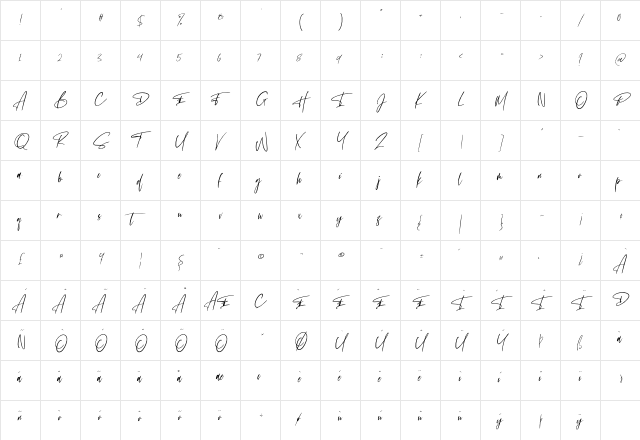
Hunthers Dwayne Regular
| Foundry | Stringlab |
| Designer | Stringlab |
Design Context for Hunthers Dwayne Typeface
Hunthers Dwayne is a composed and adaptable typeface that performs quietly and consistently across a wide range of design contexts.